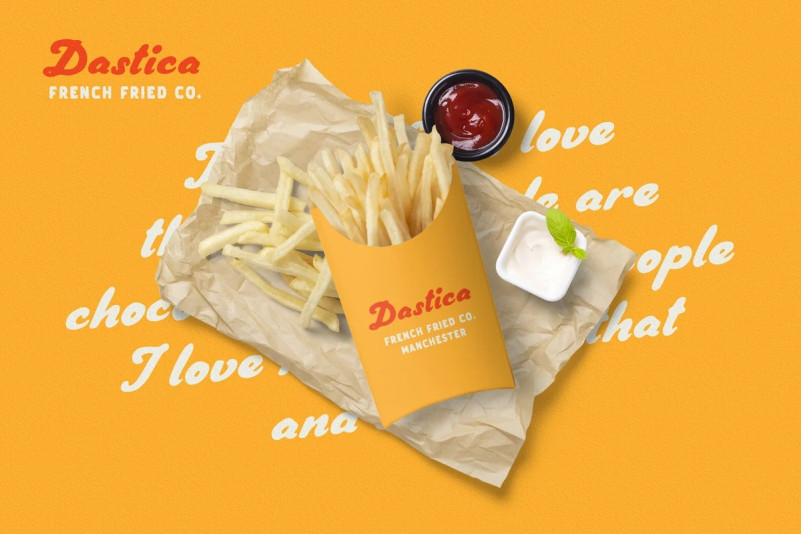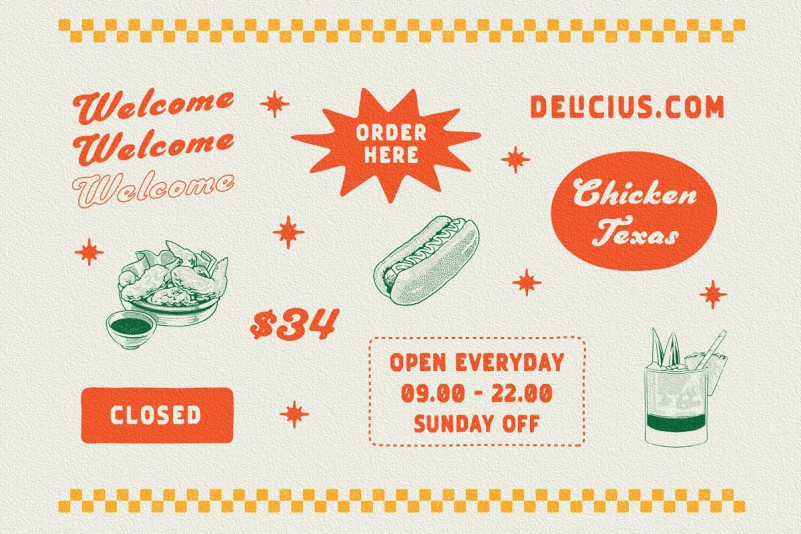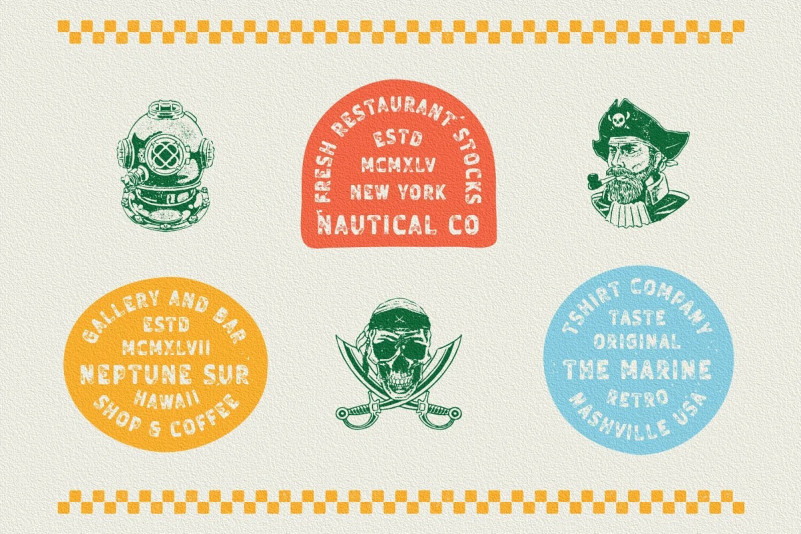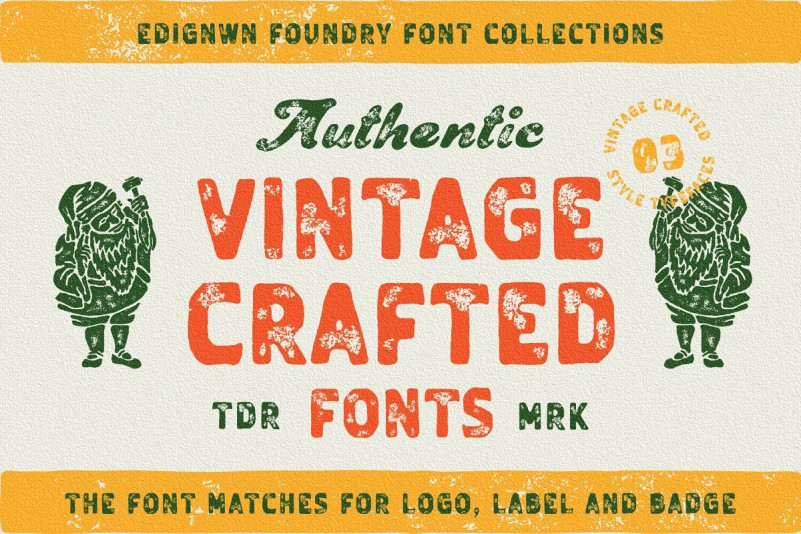
Vintage Crafted Font Duo
Vintage Crafted Font is a hand-drawn typeface duo with a retro look. Made from font designer named Edignwn Type. This font collections contain script and sans serif font. Every font comes with 3 style typefaces (regular, rough and stamp). This sans serif font includes some ligatures. The Vintage Crafted matches apply in some designs such as the logo, poster, label, badge, packaging, t-shirt, branding, quotes and more custom design.